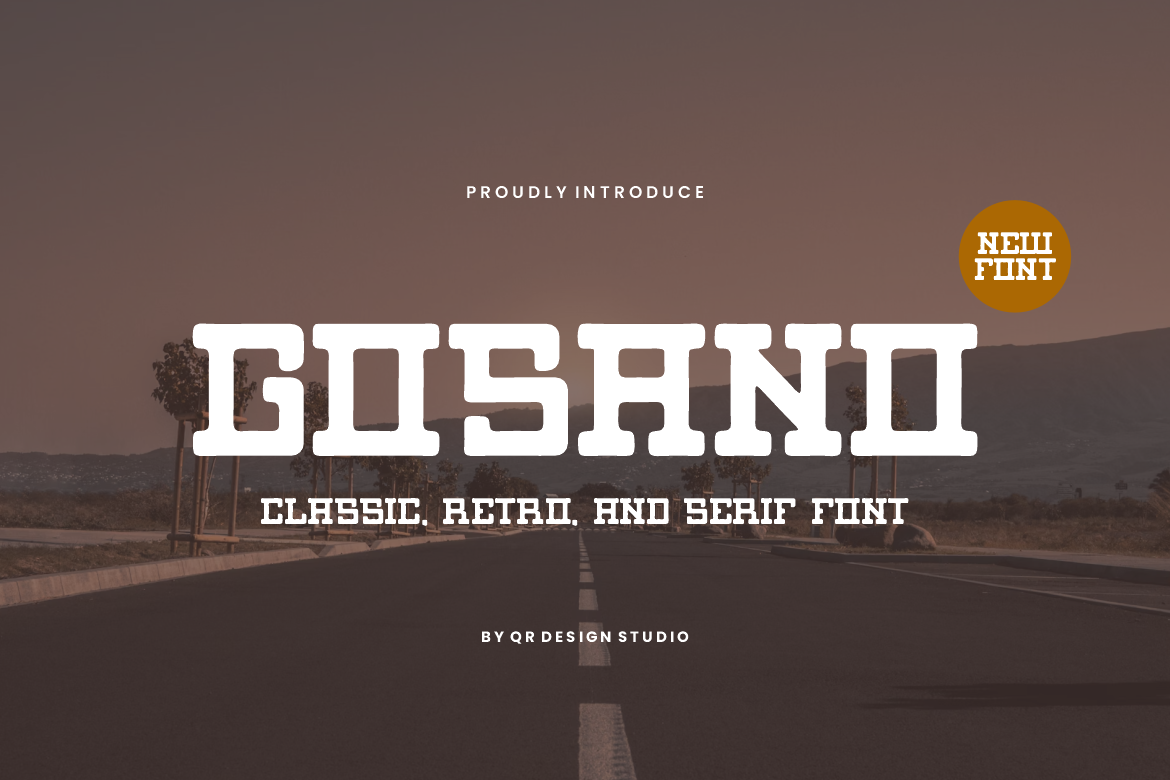
Gosano - Rustic & Slab Serif Font
Gosano Font is a slab serif and authentic display font. The font is suitable for any branding project like poster, logo, sport, and many more. Outstanding in a wide range of contexts.